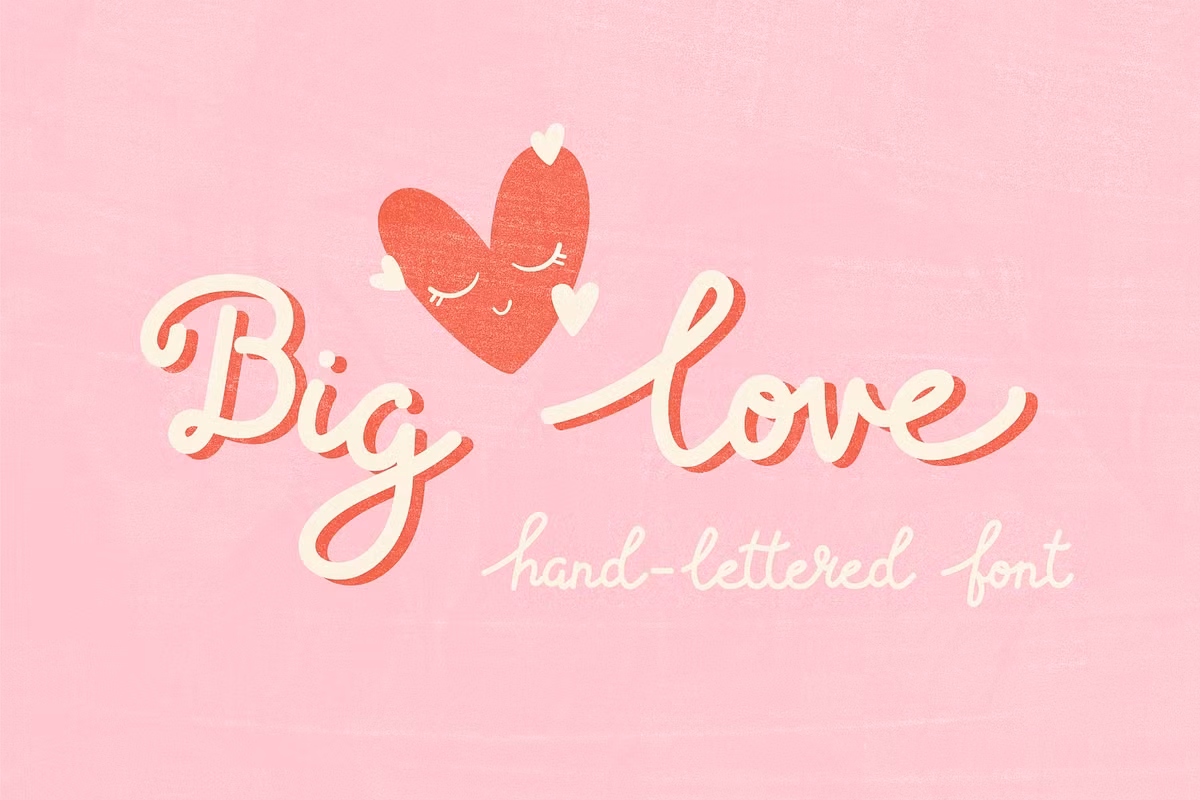
Big Love | Hand-lettered Font Free Download is a whimsical and bold script typeface that brings a personal touch to any project. With its playful, flowing strokes and charming letterforms, Big Love is perfect for greeting cards, wedding invitations, branding, logos, and social media posts that require a warm, authentic feel.
Its unique hand-lettered style adds character and emotion, making it ideal for projects that need a creative, hand-crafted appearance. Big Love includes uppercase and lowercase letters, punctuation, multilingual support, and is fully compatible with both Mac and Windows systems.